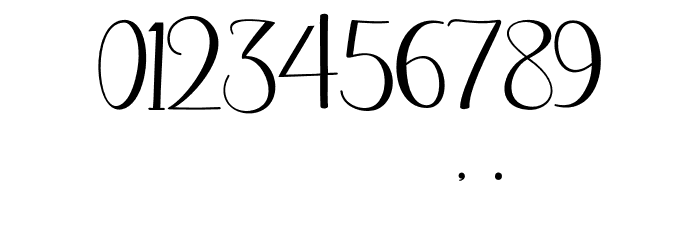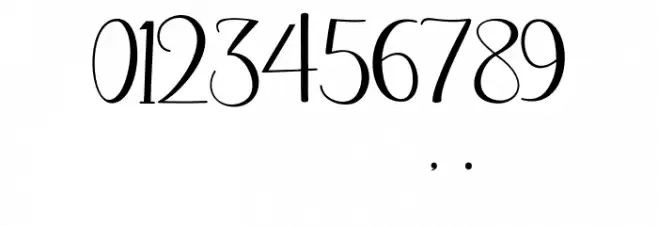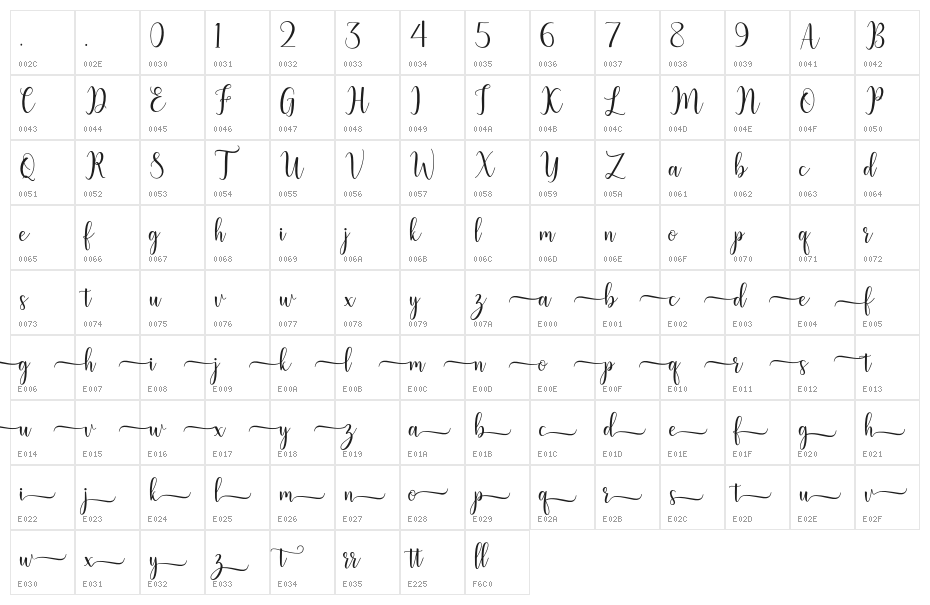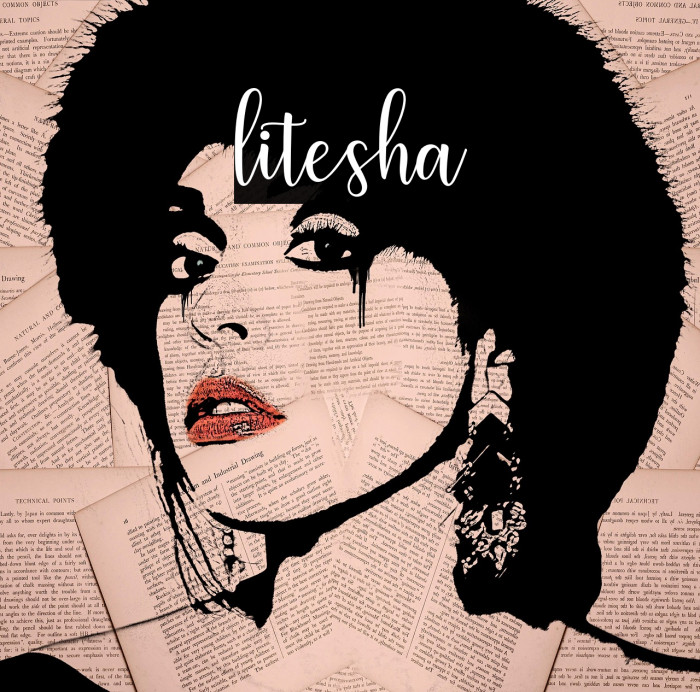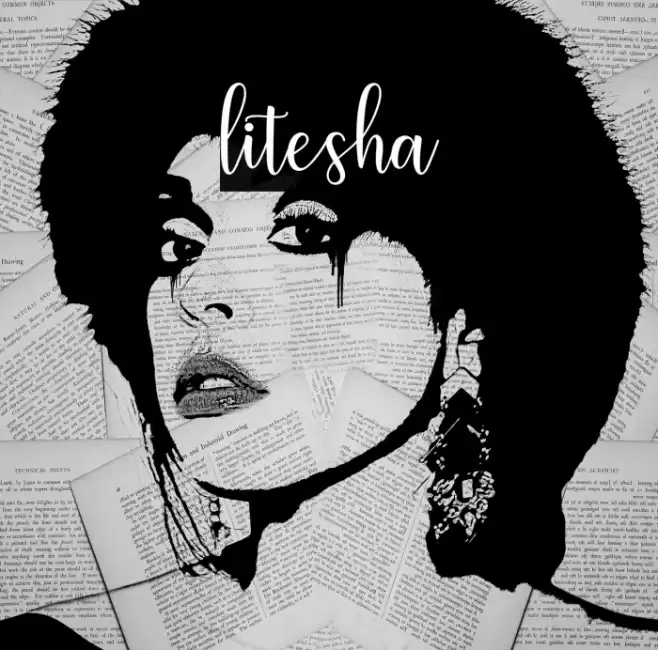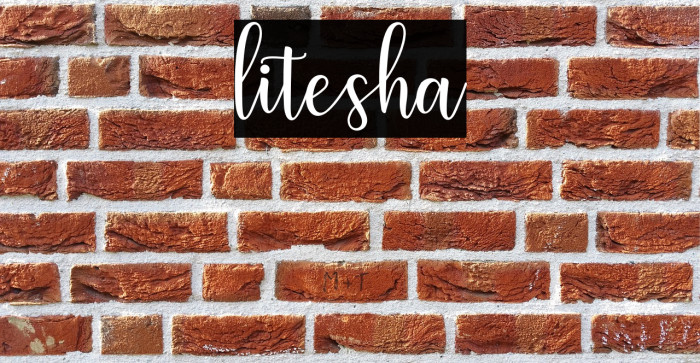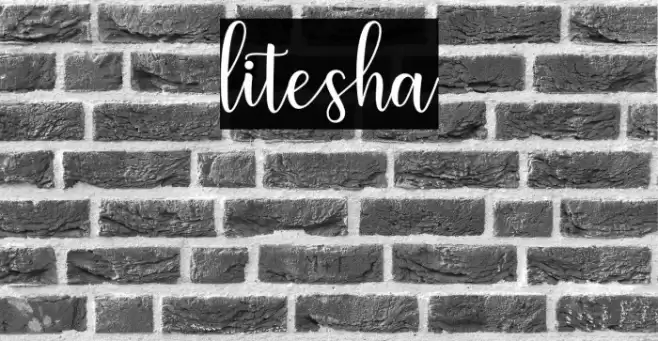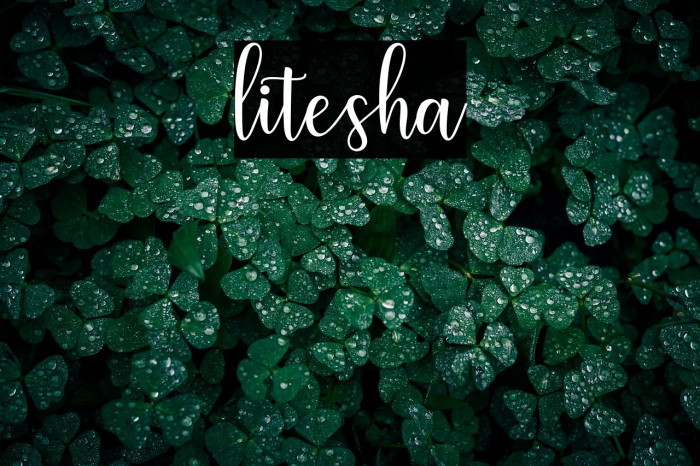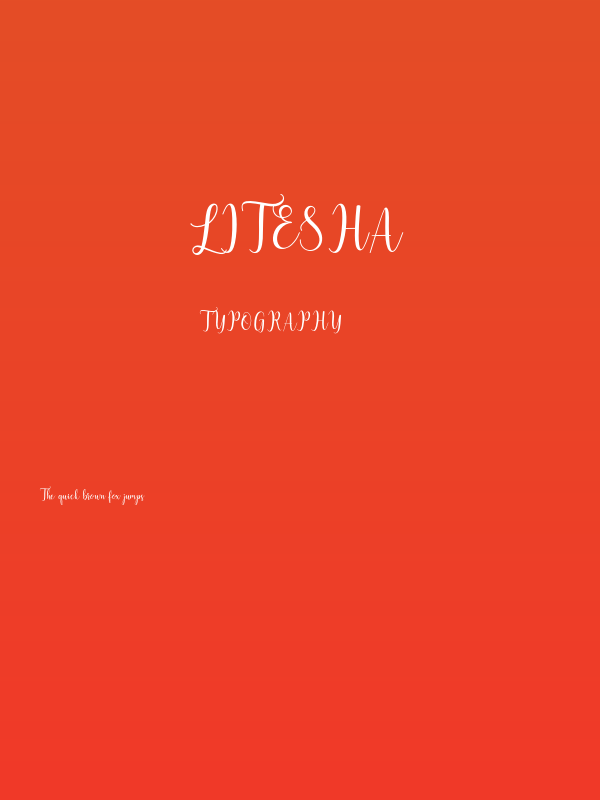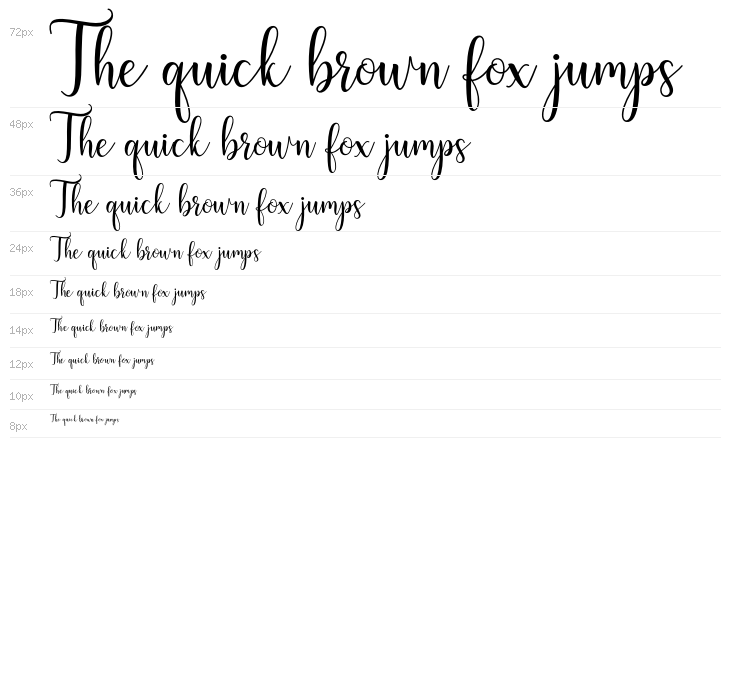
litesha Font
litesha Description
This font features an elegant and flowing script style, characterized by its smooth, cursive strokes and a graceful, handwritten appearance. The uppercase letters are tall and slightly narrow, with distinctive flourishes that add a touch of sophistication. The lowercase letters maintain a consistent flow, with rounded forms and gentle curves that create a harmonious balance. The numerals are stylishly designed, with a slight slant that complements the overall script aesthetic. The special characters are thoughtfully integrated, maintaining the font's cohesive look. This font exudes a sense of elegance and charm, making it suitable for a variety of creative applications.